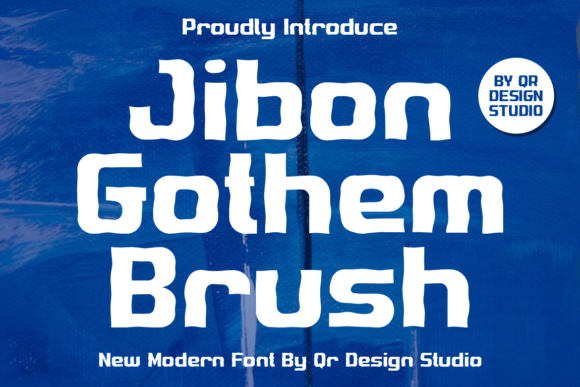
Behold, Jibon Gothem Brush Font—an extraordinary display font destined to ignite your designs with unmatched boldness and authenticity. Crafted by the masterful hands of qrdesignstd, this font is a typographic symphony that orchestrates the perfect harmony between strength and allure.
Unleash your creativity with Jibon Gothem, a font that transcends the boundaries of ordinary and ascends into the realm of the exceptional. It is the brushstroke of a master calligrapher, each letter a testament to the power of artistic expression. Allow Jibon Gothem to be the virtuoso that conducts your design, captivating your audience and leaving an unforgettable mark.
This versatile font is a virtuoso in the art of transformation, effortlessly adapting to a myriad of projects. Whether you seek to craft logos that command attention, design quotes that resonate with emotion, or create flyers that ignite excitement, Jibon Gothem is your steadfast companion.
Immerse yourself in the world of social media and let Jibon Gothem elevate your presence to new heights. Its captivating allure will attract followers like moths to a flame, ensuring your content shines brighter than ever before.
Venture into the realm of web design and harness the power of Jibon Gothem to weave a tapestry of visual enchantment. It is the maestro that will orchestrate a symphony of pixels, guiding your visitors through an immersive and unforgettable experience.
Jibon Gothem Brush Font is more than just a collection of glyphs; it is an invitation to embark on a creative odyssey. Its bold strokes and authentic charm will inspire you to push the boundaries of your imagination and craft designs that leave an indelible mark on the hearts and minds of your audience.